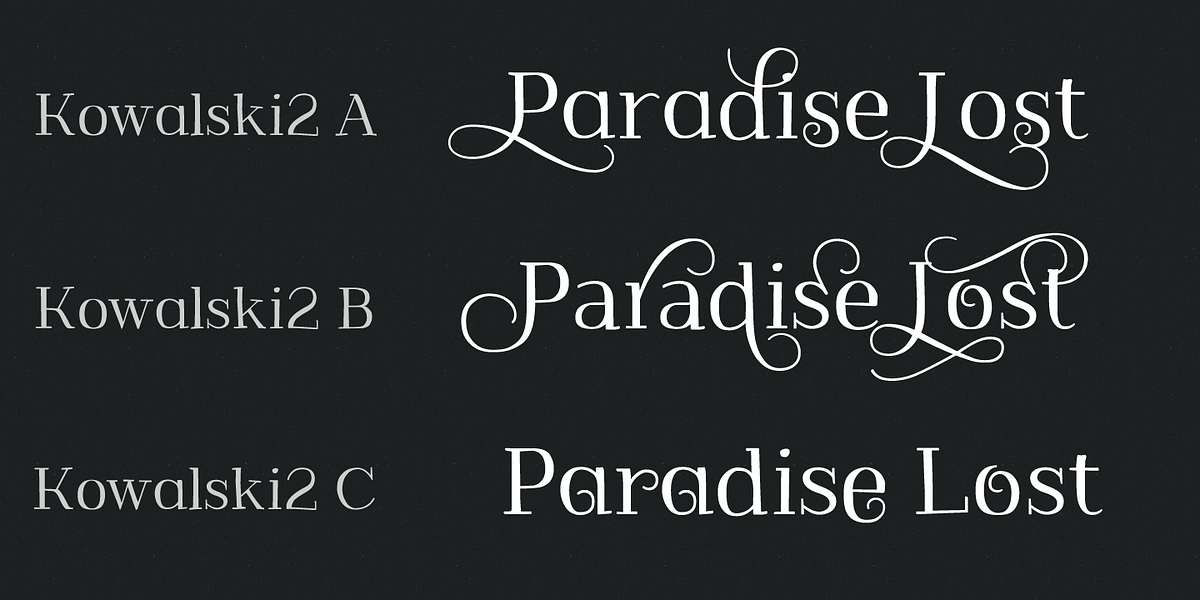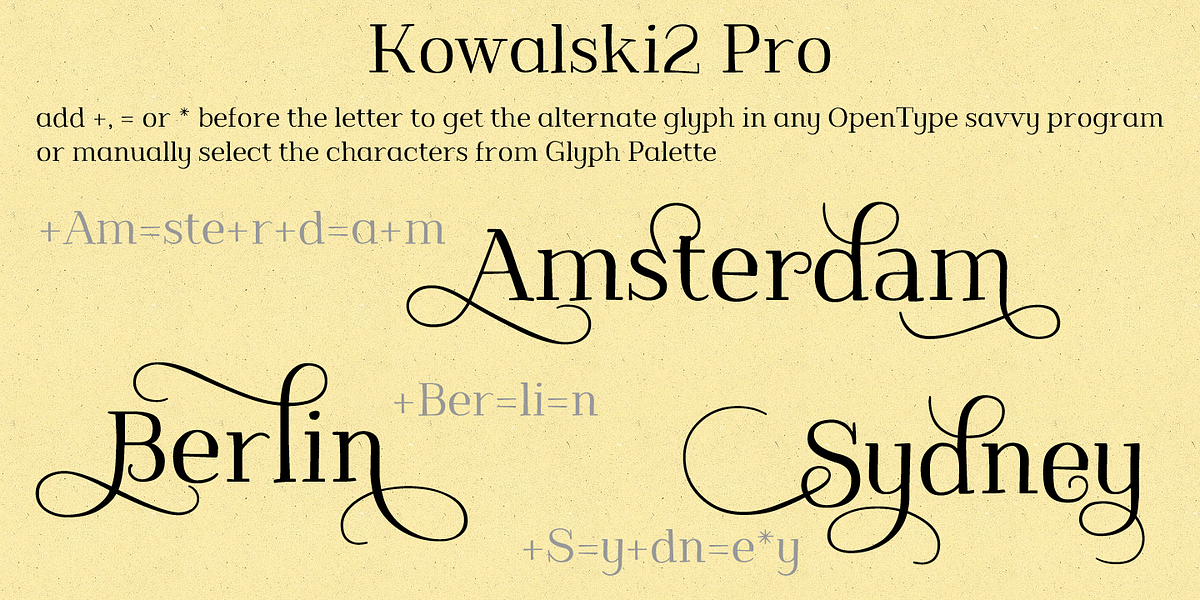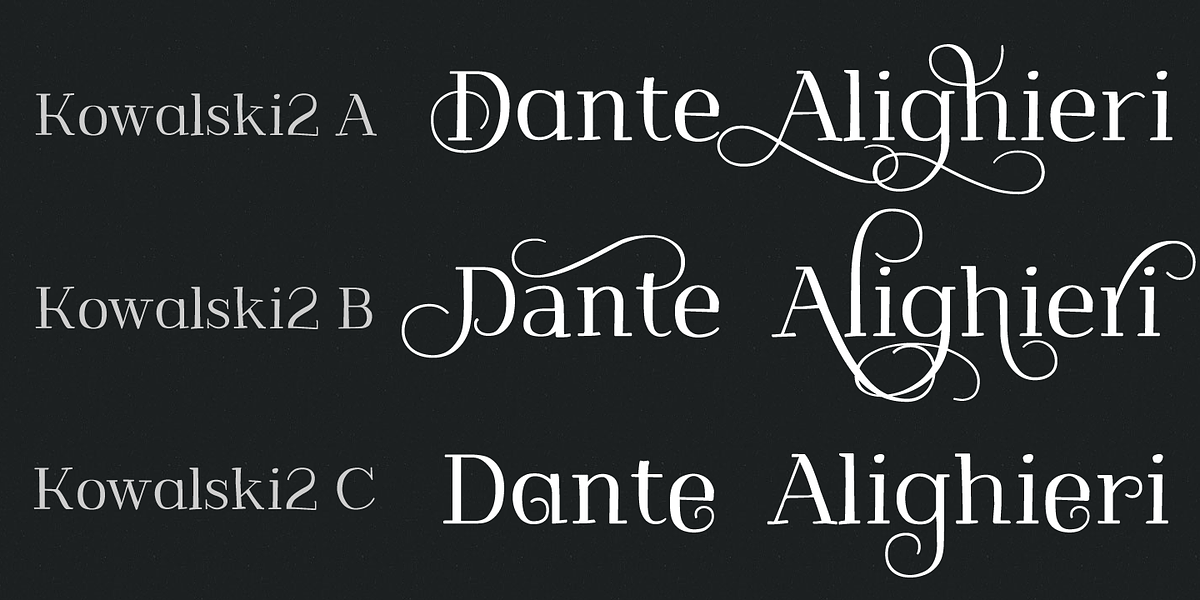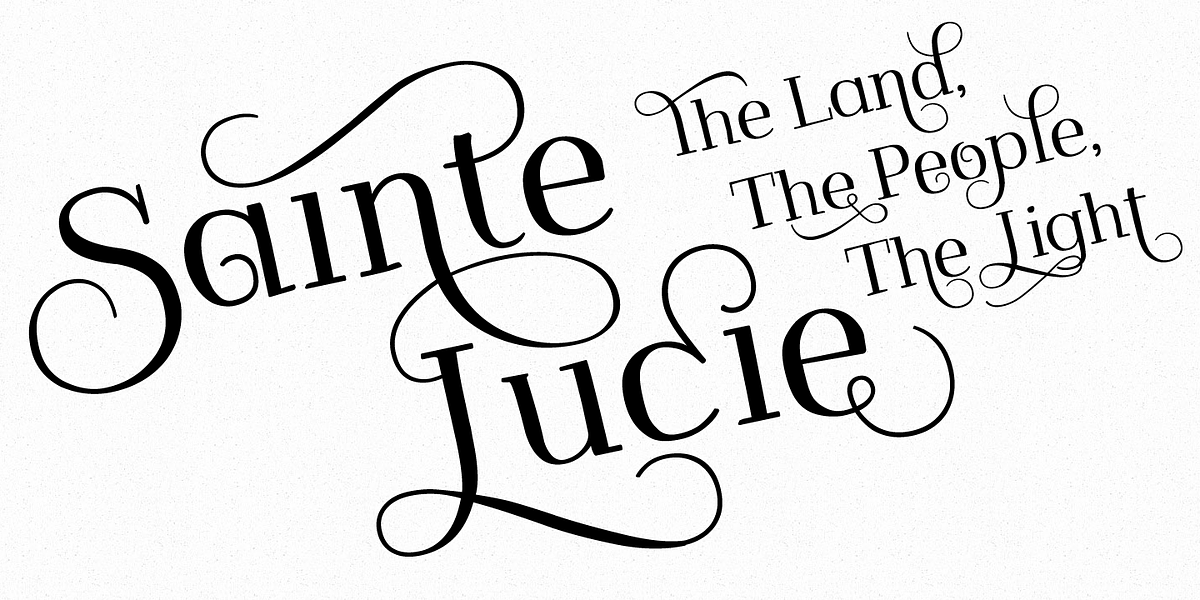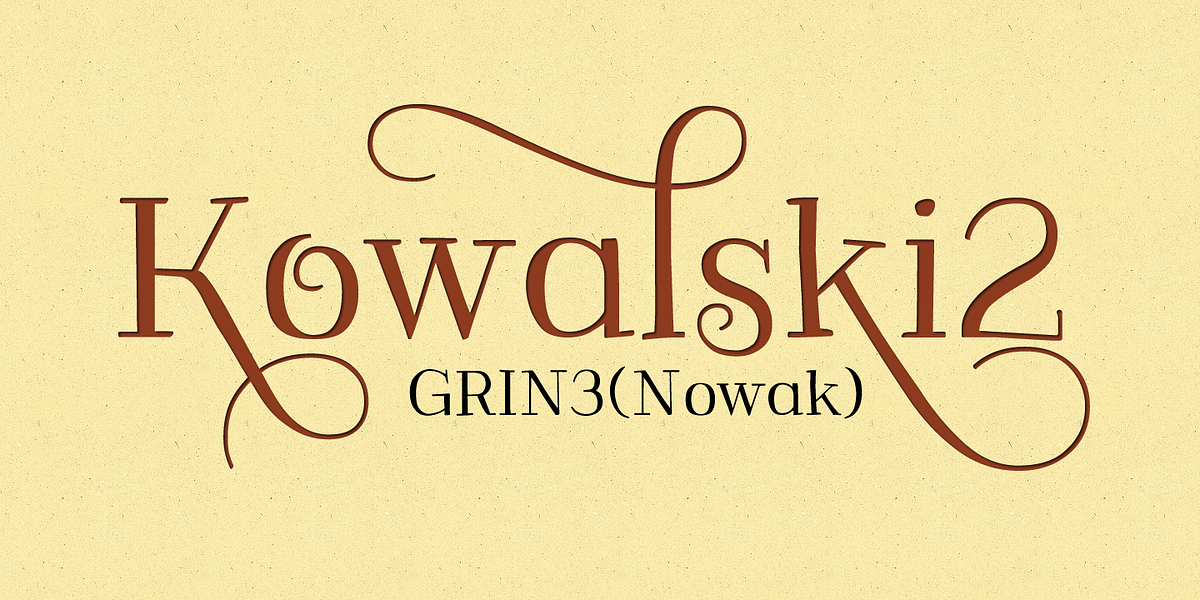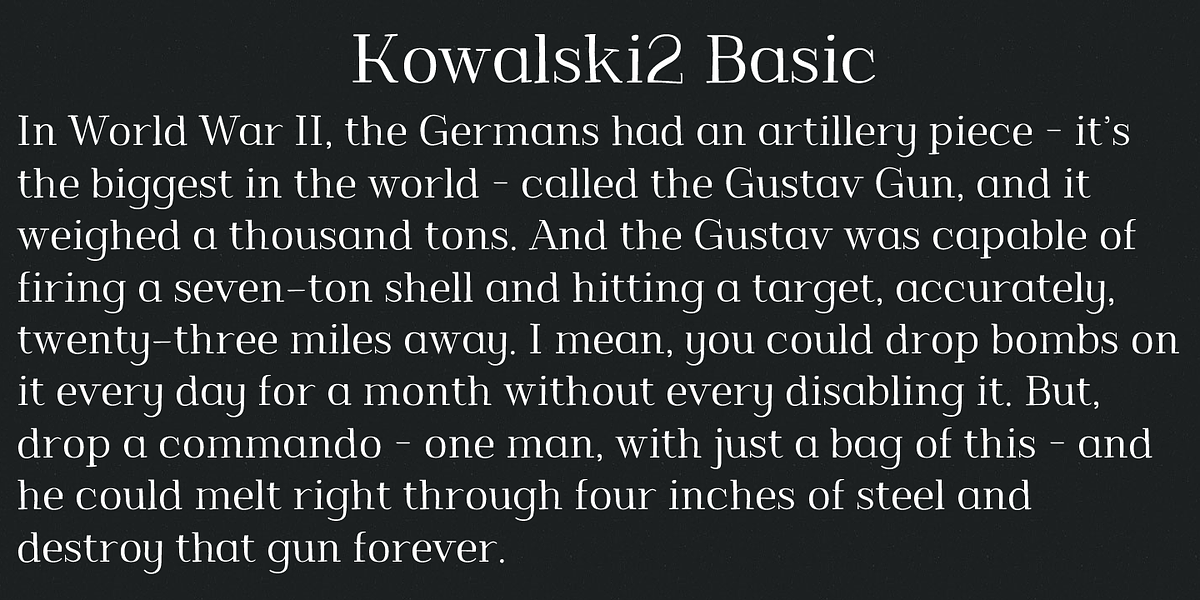
Kowalski2
Kowalski2 is a decorative serif font with a hand-drawn aesthetic. Its swashy serifs and curly details give it a vintage feel. This versatile font comes in multiple versions, including Kowalski2 Pro which offers the full set of alternates and ligatures for greater design flexibility.